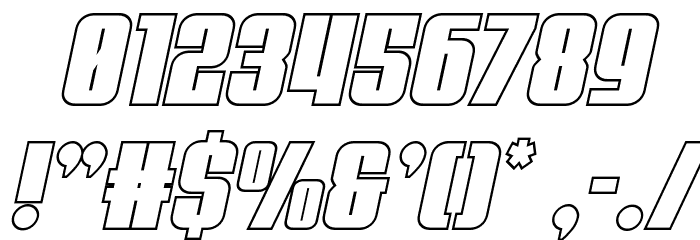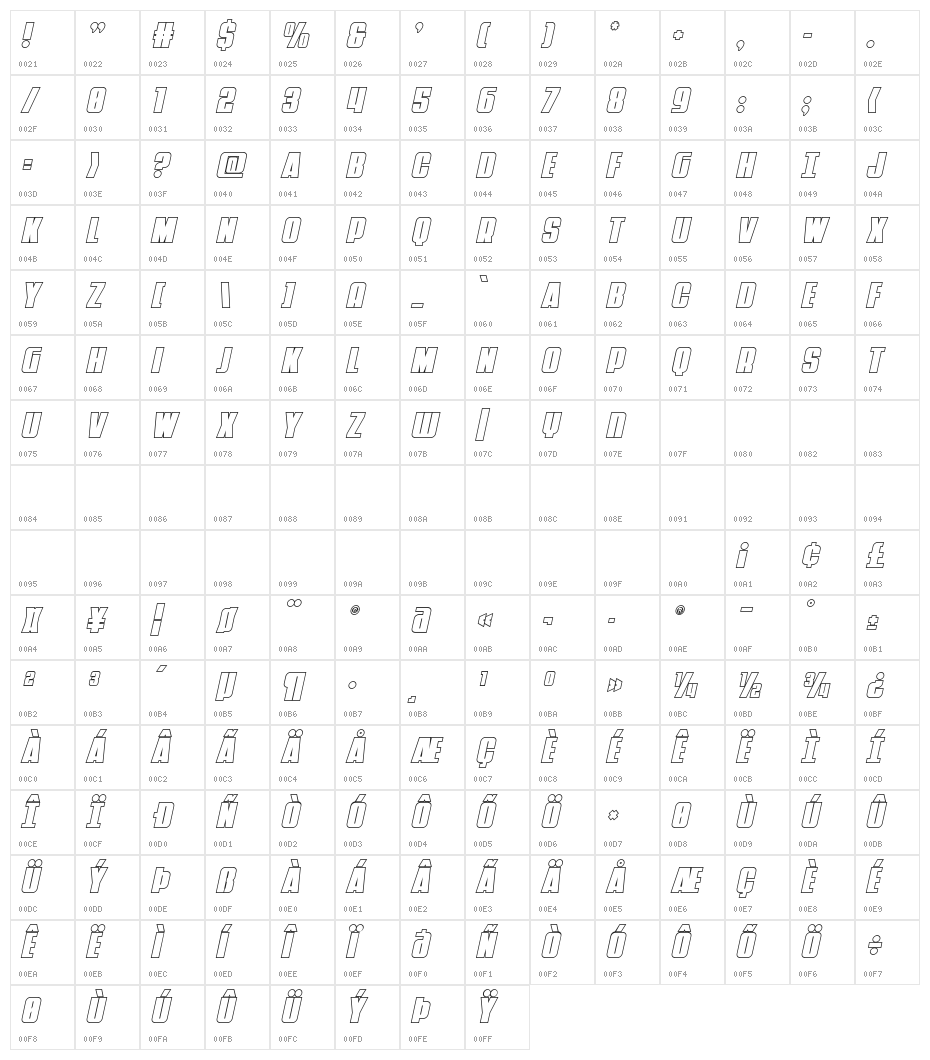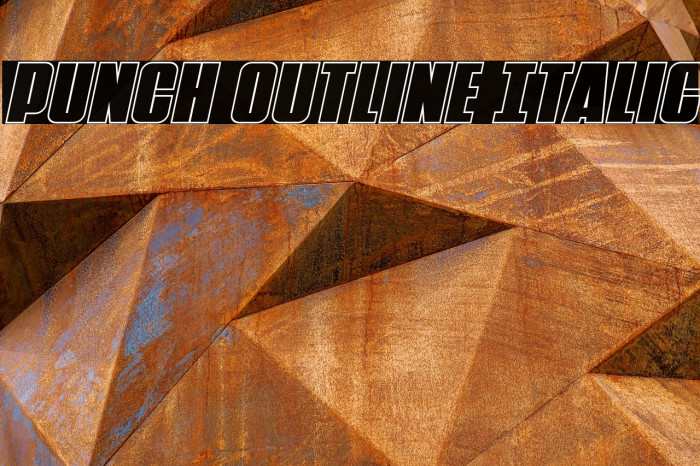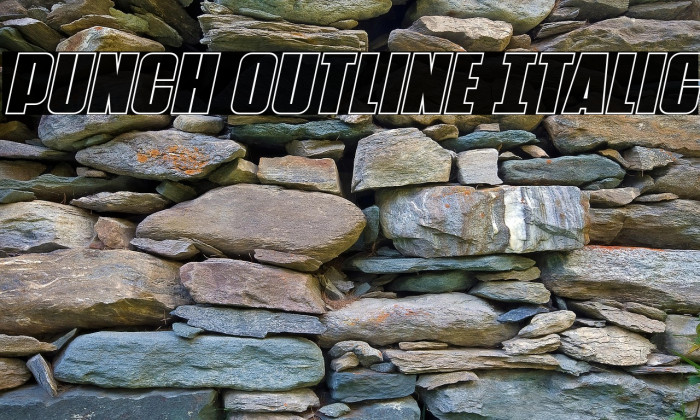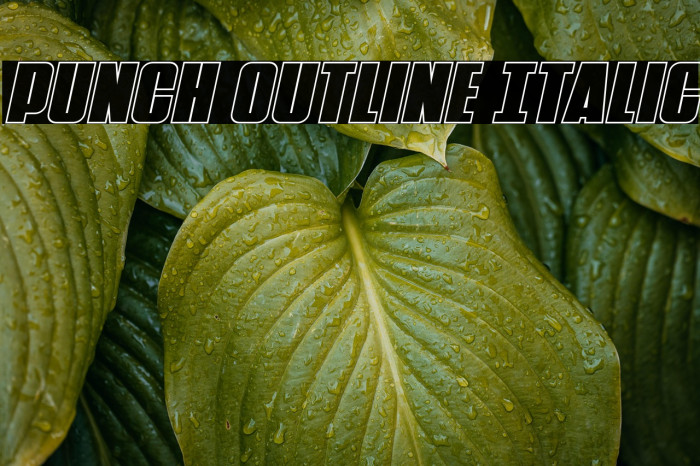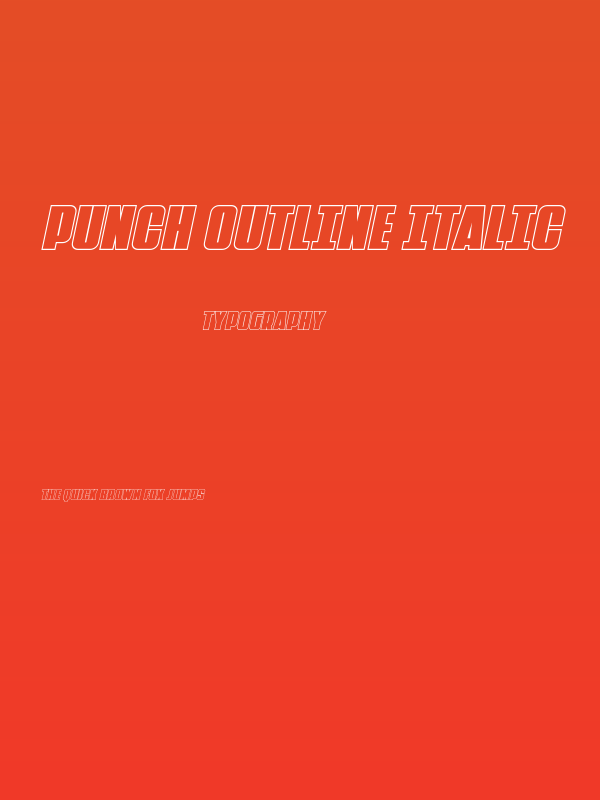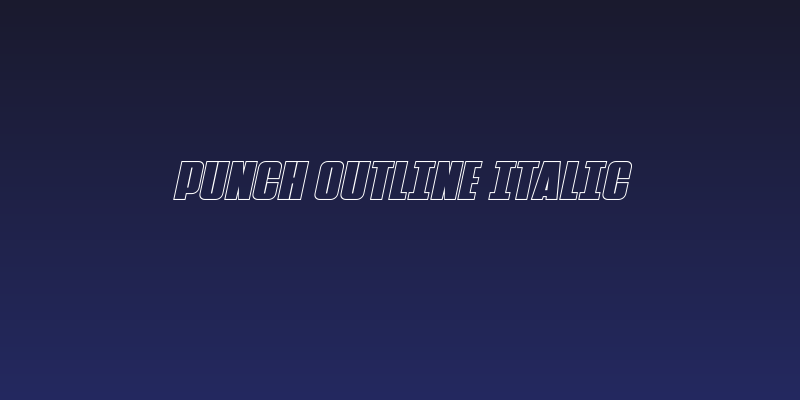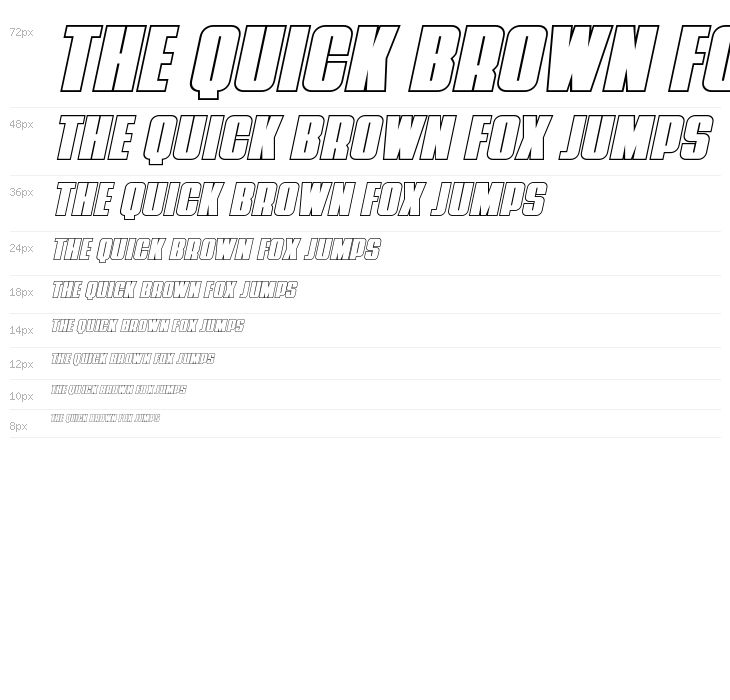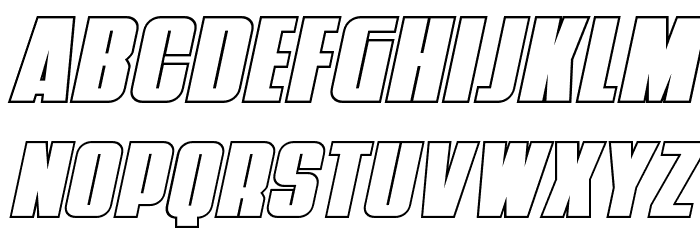
Punch Outline Italic Font
Punch Outline Italic Description
This font features a bold, italicized style with an outline effect that gives it a striking and dynamic appearance. The letters are uppercase and have a strong presence, making them ideal for attention-grabbing designs. The outline adds a layer of depth, creating a three-dimensional look. The characters are slightly condensed, which enhances their boldness and makes them suitable for impactful headlines or titles. The numbers and special characters maintain the same bold, outlined style, ensuring consistency across all elements. This font is perfect for projects that require a modern and edgy aesthetic.
| Proposed Projects | Ideal for posters, logos, headlines, and any design needing a bold statement. |